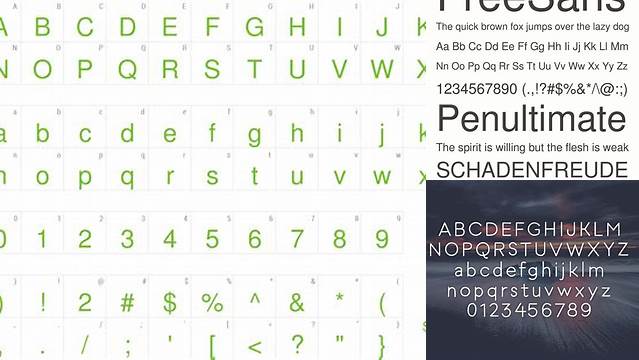
Download FreeSans Regular Font: Your Ultimate Guide
Are you looking for a versatile and legible font that's also free to use? Look no further than FreeSans Regular! In this comprehensive guide, we'll dive deep into the world of FreeSans Regular, covering everything from its origins and characteristics to how you can download it for free and use it in your projects. Whether you're a seasoned designer or just starting out, this article will provide you with all the information you need to make the most of this fantastic font. So, let's get started, guys!
What is FreeSans Regular?
FreeSans Regular is a sans-serif typeface that belongs to the GNU FreeFont family. This family of fonts was created by Primoz Peterlin and designed to be a free and open-source alternative to proprietary fonts. This means you can use FreeSans Regular for personal and commercial projects without worrying about licensing fees. How cool is that?
The FreeSans font family is extensive, including regular, bold, italic, and bold italic styles. This versatility makes it suitable for a wide range of applications, from body text in documents and websites to headings and display text in posters and presentations. FreeSans Regular, in particular, is known for its clean and simple design, making it highly readable and a popular choice for various projects. The sans-serif design means it lacks the small decorative strokes (serifs) found in fonts like Times New Roman, giving it a modern and minimalist look. This makes it a great option for projects that require a clean and contemporary feel.
The development of FreeSans Regular was driven by the need for a truly free and open-source font that could be used across different operating systems and software. This was especially important in the early days of Linux and other open-source platforms, where access to high-quality fonts was often limited. Peterlin's work on the GNU FreeFont family filled this gap, providing a reliable and versatile font solution for the open-source community. The dedication to creating a font that is both functional and aesthetically pleasing is evident in the design of FreeSans Regular, which strikes a balance between clarity and character. It's a font that can be used for long blocks of text without causing eye strain, and it also works well for headlines and other display elements. The font's clean lines and consistent letterforms make it easy to read in both print and digital formats, which is why it has become a staple in many design projects.
Key Characteristics of FreeSans Regular
Before we get into the nitty-gritty of downloading and using FreeSans Regular, let's take a closer look at its key characteristics. These characteristics are what make FreeSans Regular a valuable asset in your font library. This will help you understand why it's such a popular choice among designers and users alike.
- Legibility: FreeSans Regular is designed with legibility in mind. Its clean, uncluttered letterforms make it easy to read even at small sizes, making it an excellent choice for body text. The open counters (the enclosed spaces within letters like 'o' and 'e') contribute to its readability, ensuring that the letters remain distinct even when printed or displayed at smaller sizes. This is crucial for ensuring that your text is easily accessible to your audience, regardless of the viewing conditions.
- Versatility: As mentioned earlier, FreeSans Regular's versatility is one of its main strengths. It works well in a variety of contexts, from print to digital, and is suitable for everything from body text to headlines. The font's neutral and balanced design makes it a great option for a wide range of design styles, from corporate to creative. This adaptability means you can use FreeSans Regular for various projects without needing to switch fonts constantly, saving you time and ensuring consistency in your design.
- Sans-Serif Design: The sans-serif nature of FreeSans Regular gives it a modern and minimalist aesthetic. This style is particularly well-suited for contemporary designs and digital applications, where clean lines and simplicity are often preferred. The absence of serifs makes the font appear less formal than serif typefaces, making it a great choice for projects that aim to convey a sense of modernity and approachability. This design choice also contributes to the font's legibility, especially on screens, where the absence of fine details can make text easier to read.
- Multiple Styles: While we're focusing on the Regular style in this article, it's important to remember that FreeSans comes in a variety of styles, including Bold, Italic, and Bold Italic. This allows you to add emphasis and visual interest to your text without having to switch to a different font family. The availability of different styles within the same font family ensures consistency in your design while providing you with the flexibility to highlight key elements and create visual hierarchy. This is particularly useful for longer documents or websites where you need to differentiate headings, subheadings, and body text.